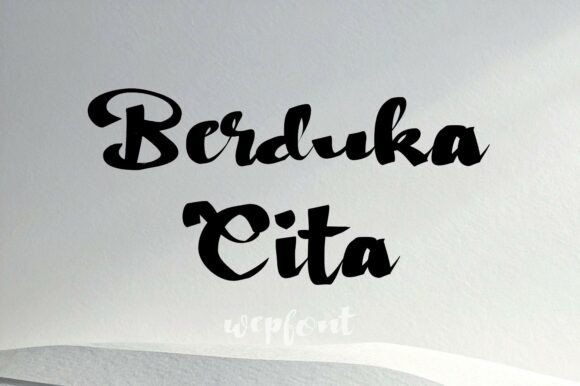
Discover the Emotional Depth of Berduka Cita Font
Have you ever been in the middle of a design project, pouring your heart and soul into it, only to realize that something’s missing? You’re not quite sure what it is, but you know it’s not quite right. I recall a project where I was tasked with creating a memorial card for a client. I wanted to convey a sense of warmth, respect, and genuine emotion, but I just couldn’t find the right font to bring it all together. That’s when I stumbled upon the Berduka Cita font, and it completely transformed my design.
A Personal Review of Berduka Cita
• ✨ Expressive yet readable: Berduka Cita strikes the perfect balance between classic script and modern readability. Its fluid strokes and elegant letterforms make it perfect for a wide range of design projects.
• ✅ Multipurpose uses: This font comes with a range of standard punctuation glyphs, making it suitable for everything from memorial cards to inspirational quotes, and even personalized merchandise.
• 💕 Emotional depth: Berduka Cita has a way of breathing life into your designs, adding a touch of warmth and sincerity that’s hard to find with other fonts.
While Berduka Cita is an amazing font, there are a few things to keep in mind:
• ⚠️ Kerning issues: As with any script font, you may need to adjust the kerning to get the perfect spacing between letters.
• 🤔 Limited use in body text: While Berduka Cita is beautiful, it’s not the best choice for long blocks of body text. It’s better suited for headings, titles, or short paragraphs.
The Story Behind Berduka Cita
Berduka Cita was inspired by the traditional Indonesian script, with a modern twist. The font’s creator aimed to craft a typeface that would convey warmth, respect, and genuine emotion. The result is a beautiful, expressive script font that’s perfect for a wide range of design projects.
Q: What is Berduka Cita font best used for?
A: Berduka Cita is versatile and can be used for various design projects, including memorial cards, inspirational quotes, personalized merchandise, and more.
Q: Is Berduka Cita difficult to read?
A: No, Berduka Cita is designed to be readable, making it perfect for designs that require a touch of elegance and sophistication.